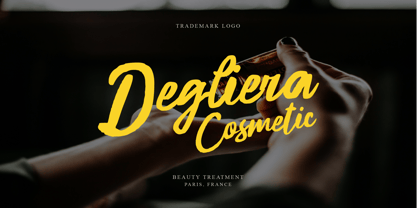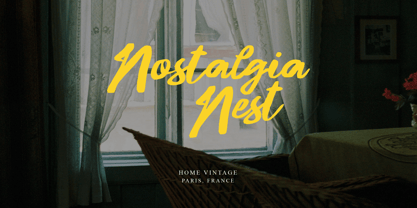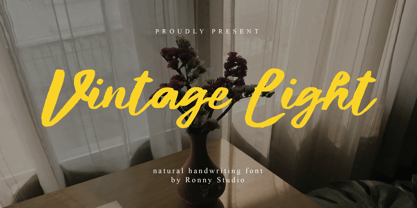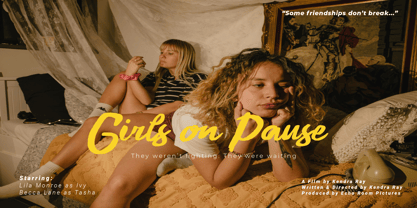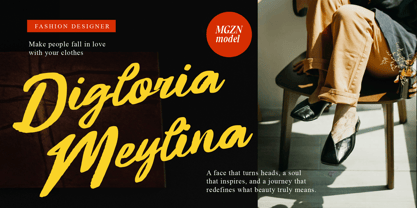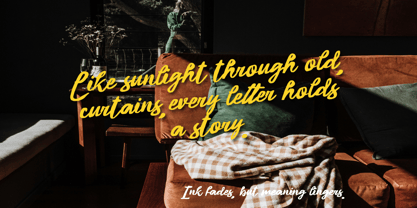
Vintage Light
by Ronny Studio
The Vintage Light Font Family was designed by Rony Rizki Jaya and published by Ronny Studio. Vintage Light contains 1 styles. More about this family
Introducing Vintage Light, a charming natural handwriting font that brings warmth and authenticity to your designs. With its bold yet soft strokes, Vintage Light evokes a nostalgic yet contemporary feel—perfect for projects that need a personal, handcrafted touch. Whether you're creating branding, invitations, or digital content, this font delivers effortless elegance and approachability.